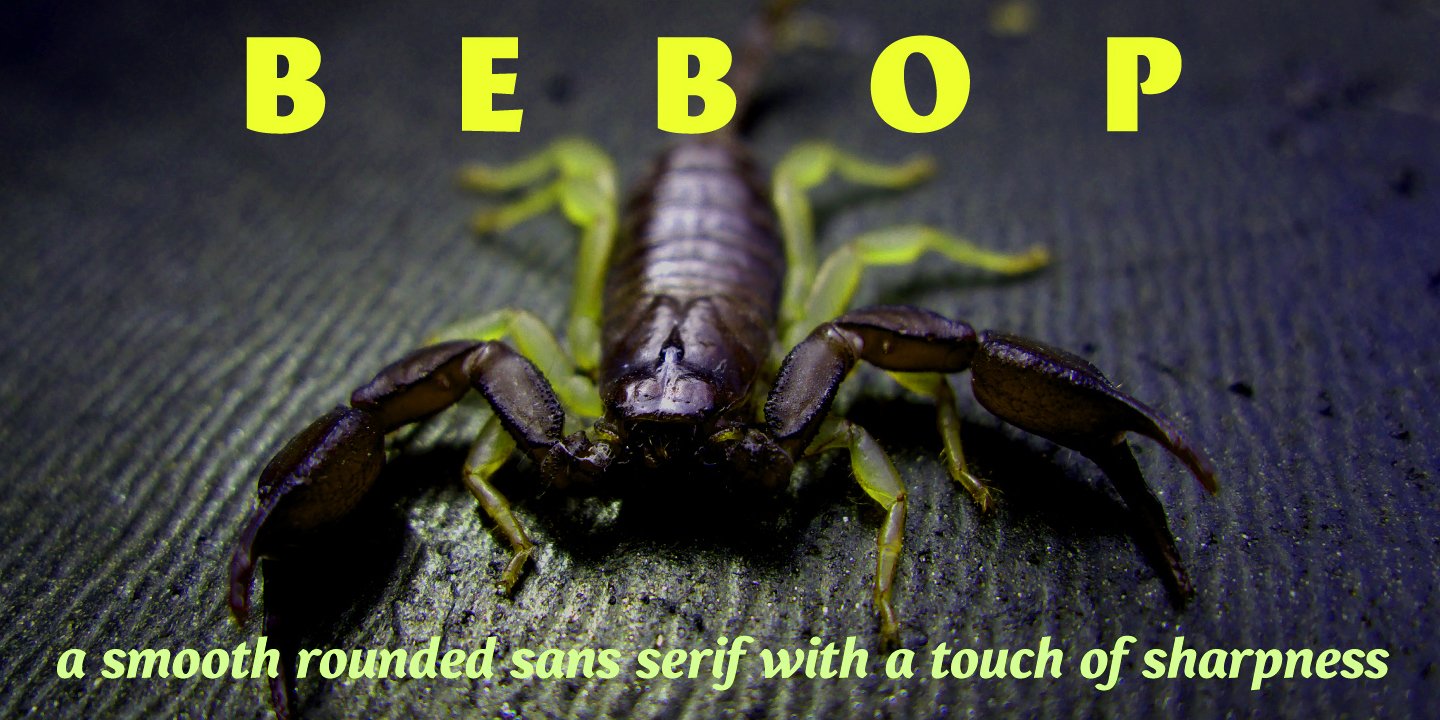
Bebop Font is perfect for jazz club branding, music festival posters, vinyl record covers, retro advertising, vintage logos, nightclub promotions, music magazines, entertainment venues, and any project requiring rhythmic typography with authentic 1950s jazz aesthetics.
What makes Bebop Font exciting is its syncopated rhythm that captures the improvisational spirit and energetic flow of bebop jazz music. This dynamic typeface embodies the spontaneous creativity and rebellious attitude of the jazz era with flowing letterforms that seem to dance across the page. The font's musical character and vintage charm make it perfect for designs that need to convey artistic expression, cultural sophistication, and the timeless cool of American jazz heritage.
The Bebop Font family includes regular weight with complete uppercase and lowercase alphabets, numerals, punctuation marks, and special musical symbols. The font maintains consistent rhythmic flow throughout all characters while ensuring excellent readability for both display headlines and smaller text applications in music-related designs.
Whether you're designing for music venues, creating vintage-inspired branding, or developing entertainment materials with authentic jazz aesthetics, Bebop Font Free Download brings unmatched musical energy and period authenticity to your projects. This exceptional typeface transforms ordinary text into swinging visual performances that capture the essence of jazz culture and artistic expression. The font's distinctive character makes it ideal for projects celebrating music history, cultural events, and creative expression. Download this remarkable font today and let your designs swing with the authentic rhythm and soul of bebop jazz.